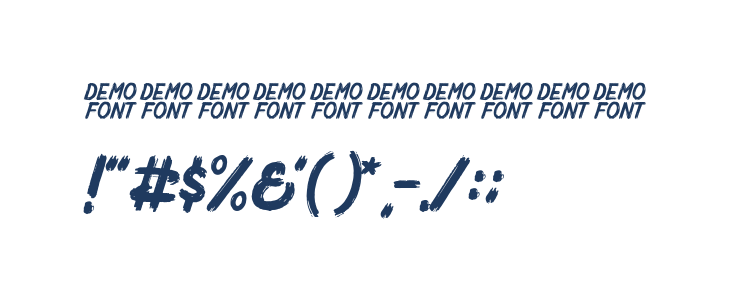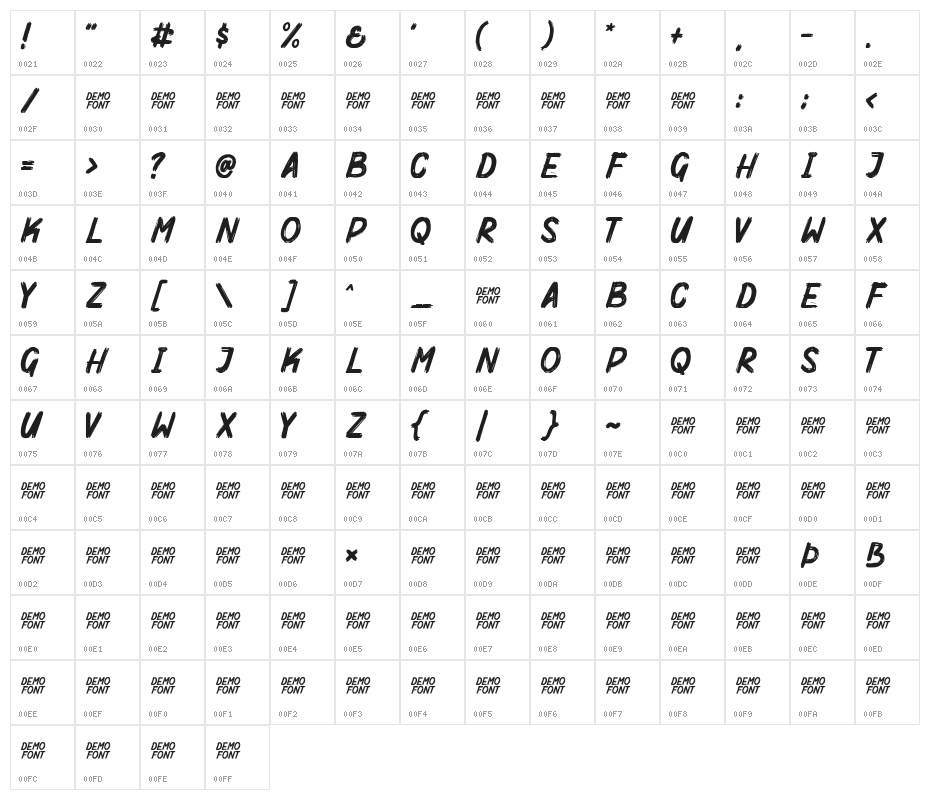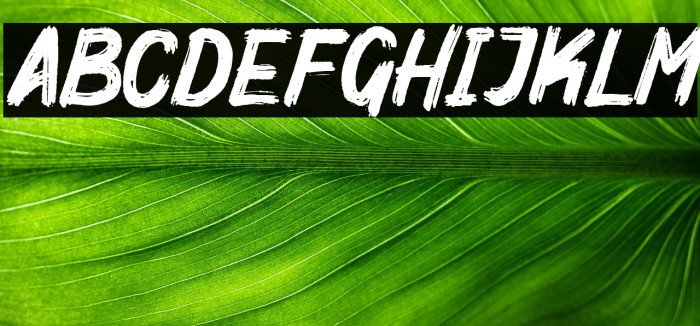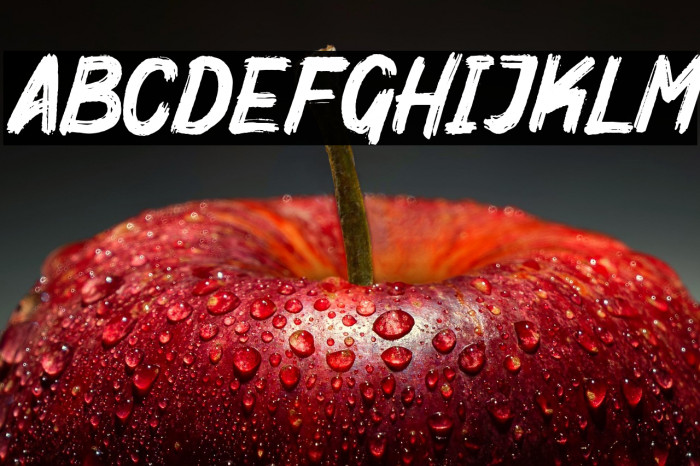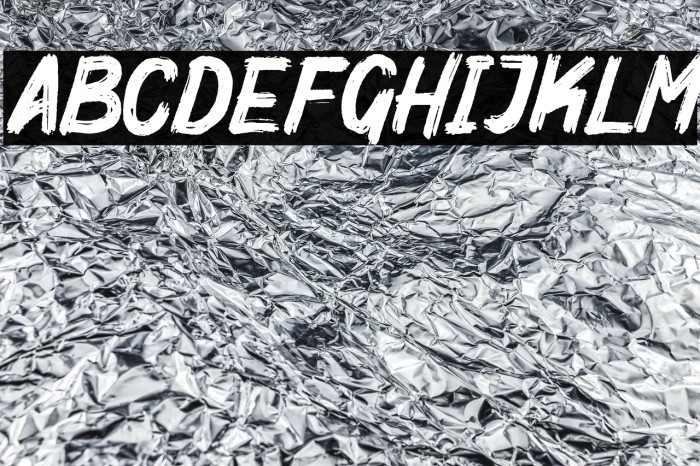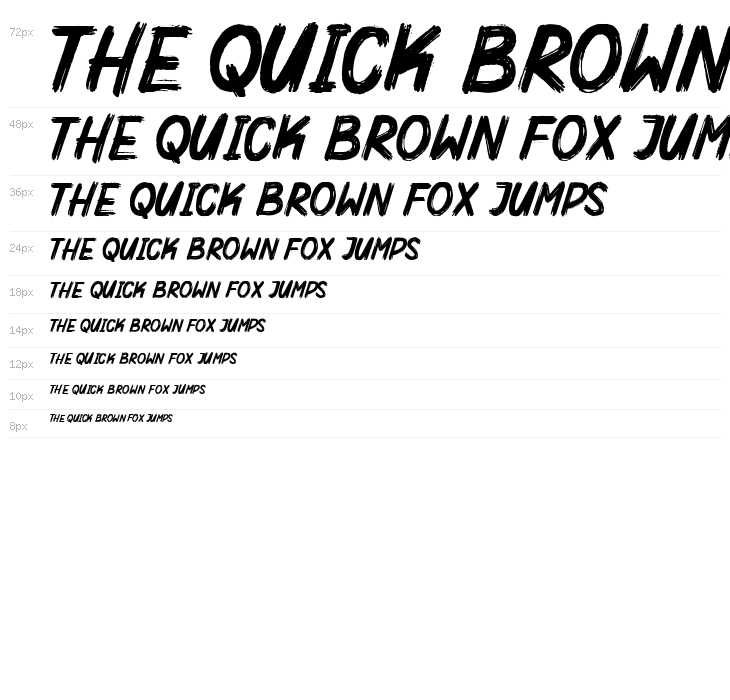
Mighty Brush Font
Mighty Brush Description
This font exudes a bold and energetic style, characterized by its brush-like strokes that give it a dynamic and artistic appearance. The uppercase and lowercase letters maintain a consistent flow, with each character appearing as if it were painted with a thick brush. The strokes are uneven, adding to the raw and expressive nature of the font. It captures attention with its dramatic flair, making it ideal for designs that require a strong visual impact. The font's rugged texture and irregular edges contribute to its unique personality, making it suitable for creative projects that aim to convey a sense of movement and spontaneity.